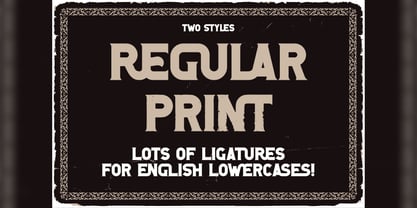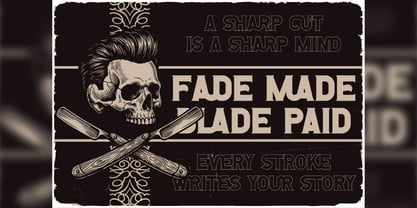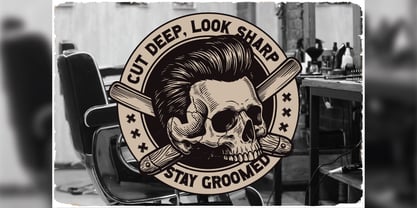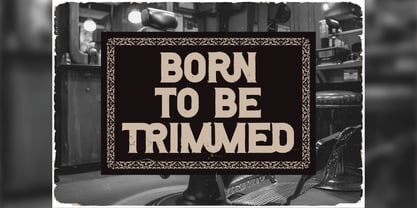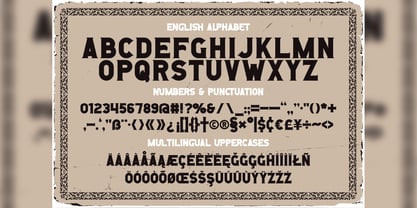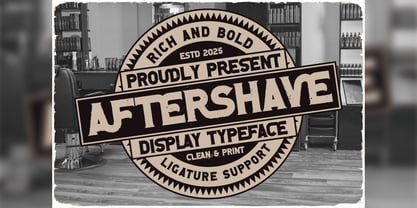
Aftershave
by Vozzy
The Aftershave Font Family was designed by Oleg Voznyy and published by Vozzy. Aftershave contains 2 styles and family package options. More about this family
Introducing the captivating font family "Aftershave," designed specifically for headlines, accent inscriptions, and any project that demands attention. This unique typeface boasts a rich array of additional characters, punctuation marks, and multilingual options, ensuring versatility for diverse design needs. With a substantial selection of standard ligatures, "Aftershave" enhances readability and aesthetic appeal—just ensure your software supports these OpenType features. Perfect for branding, web design, and editorial projects, this font will elevate your beautiful designs to new heights!
Designers: Oleg Voznyy
Foundry: Vozzy